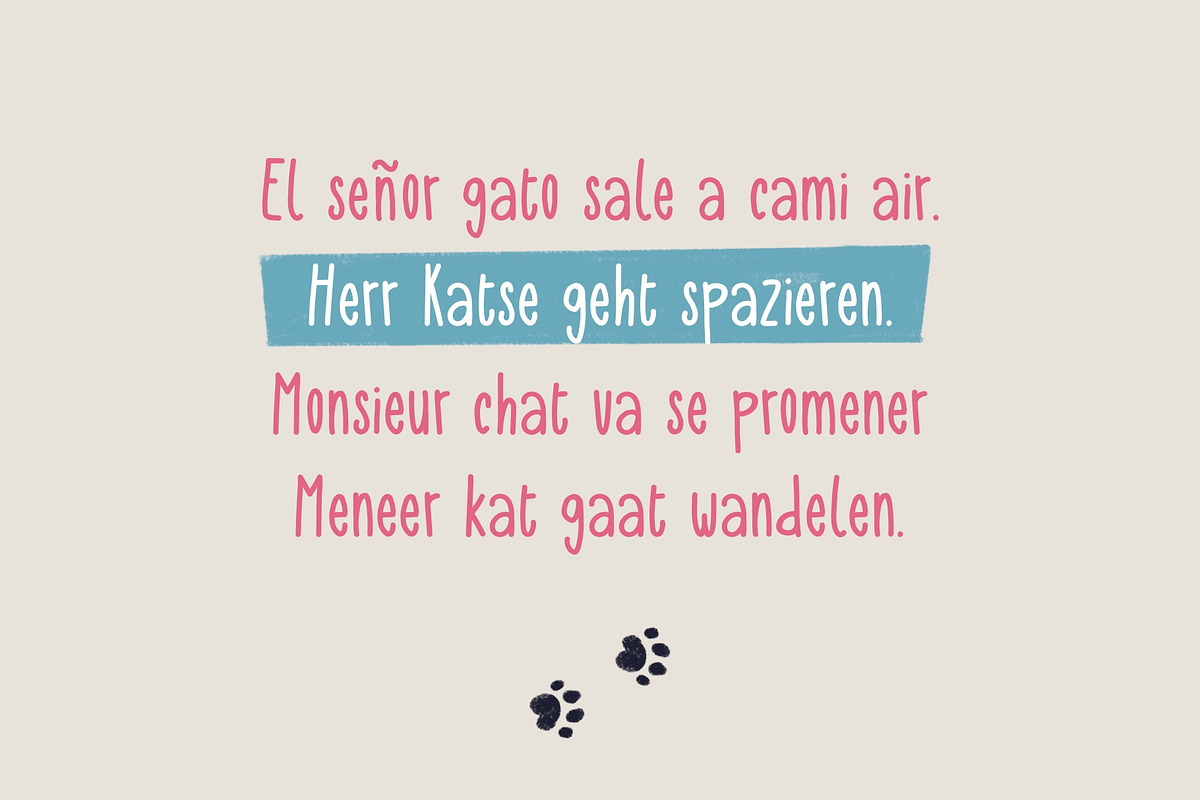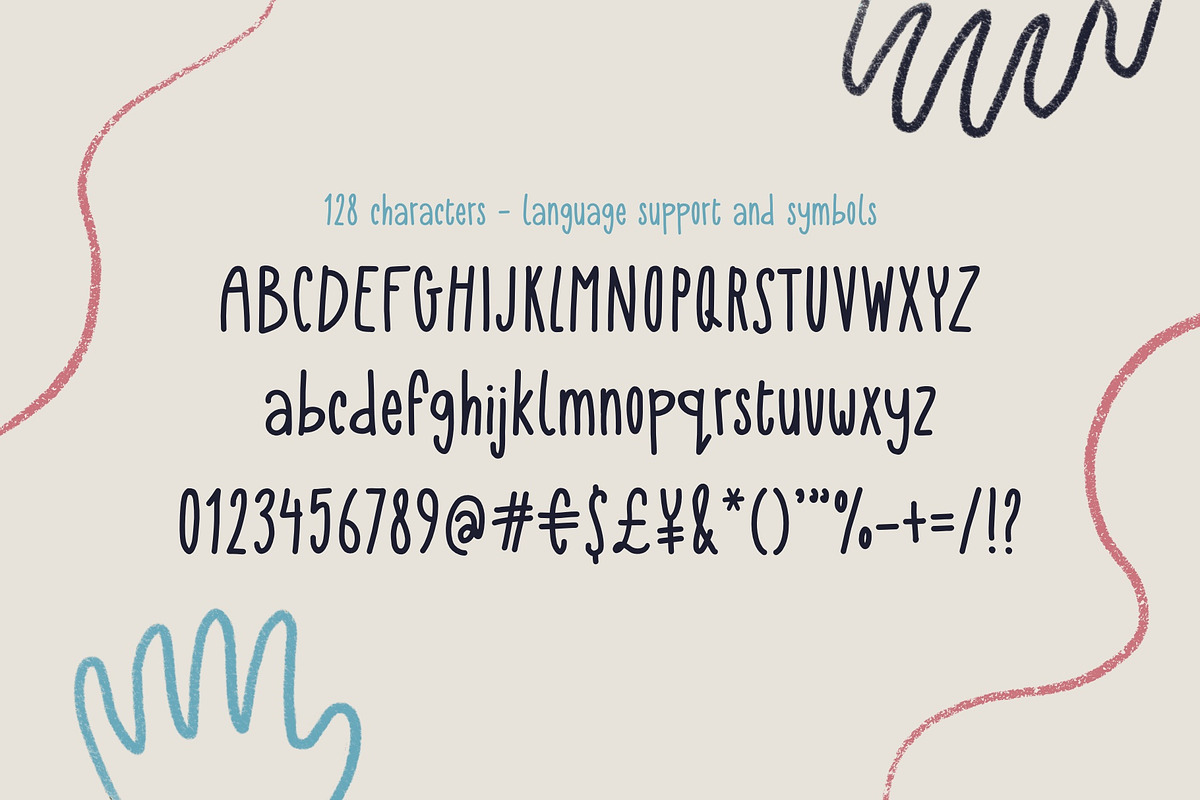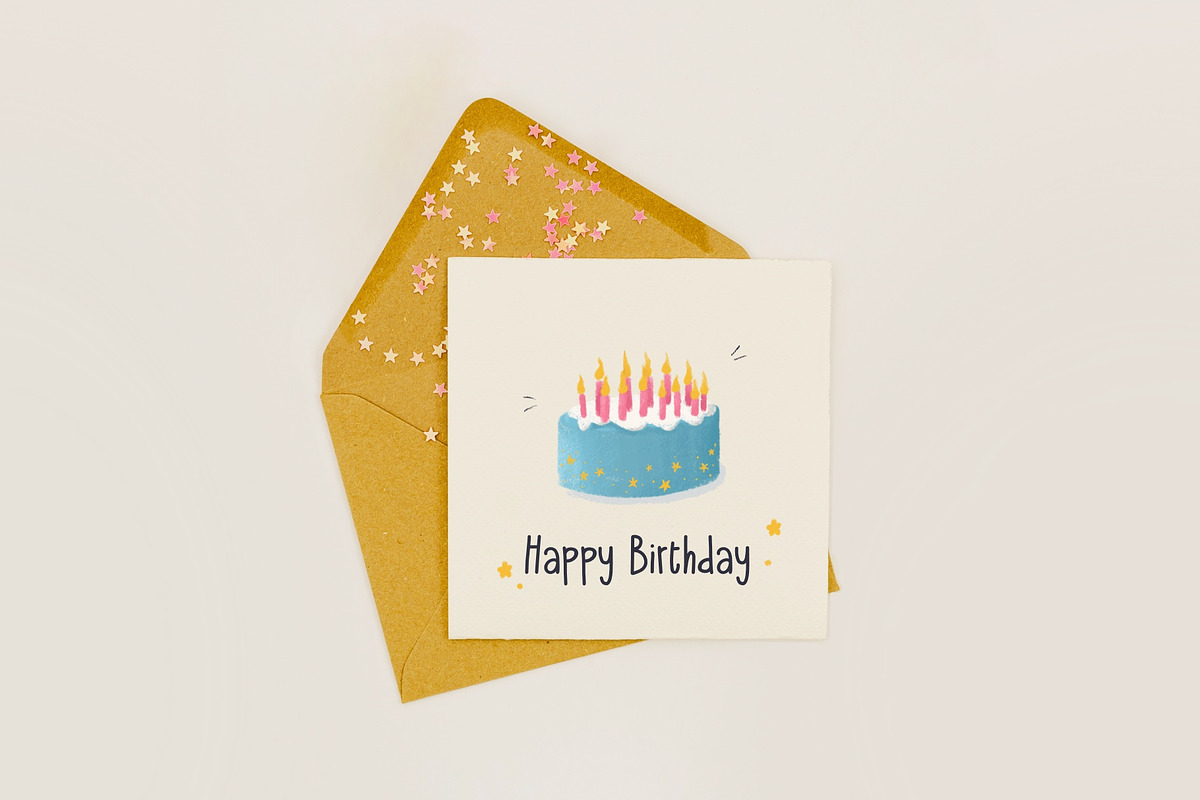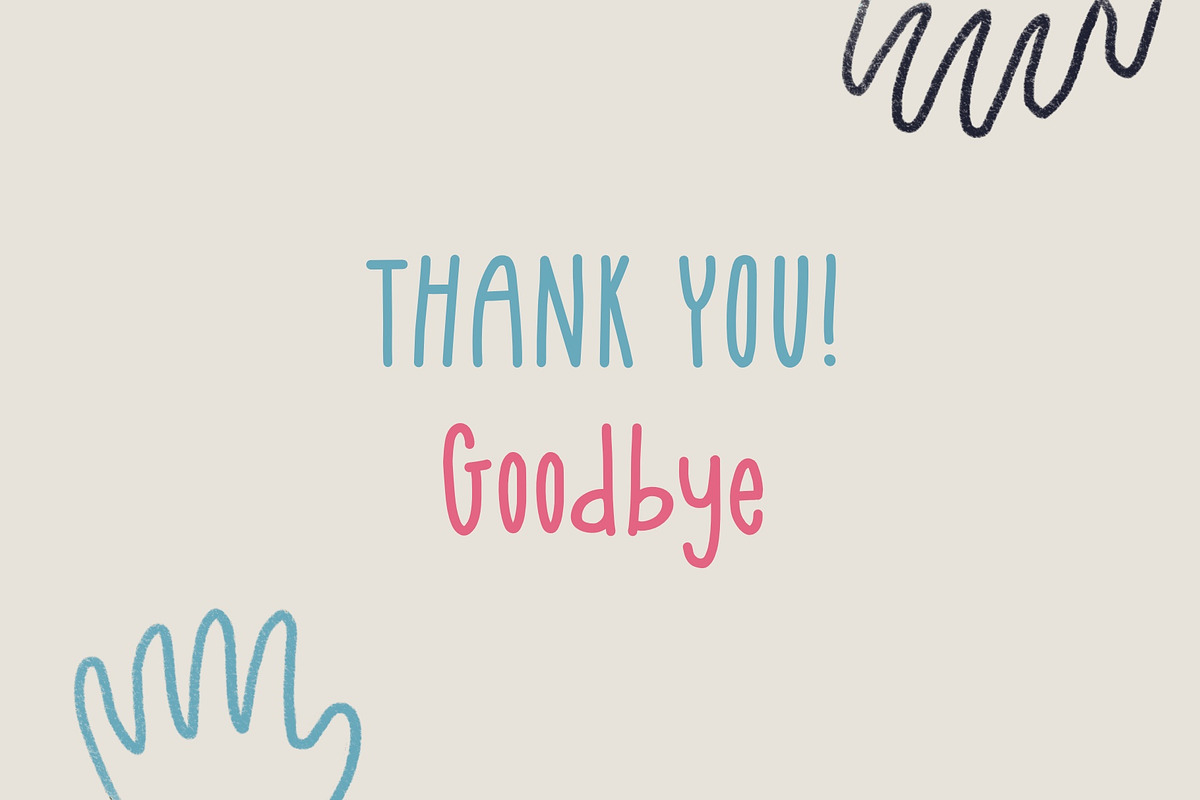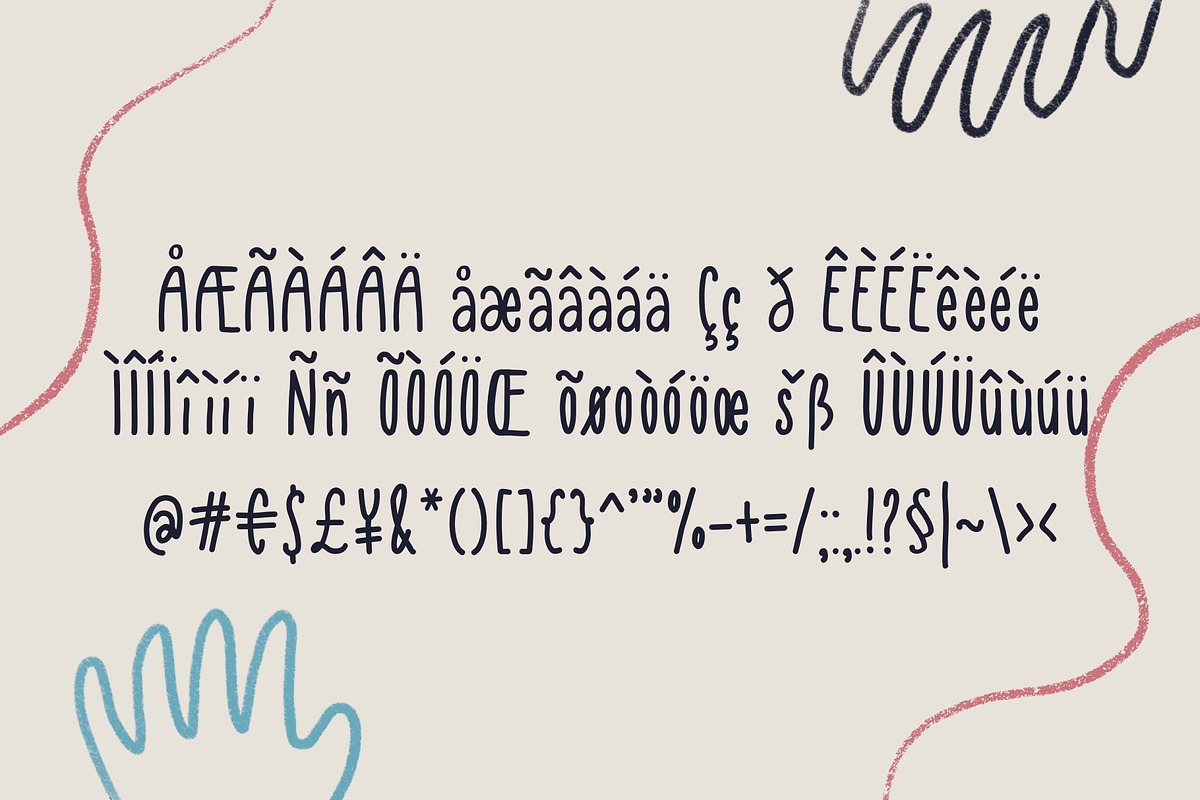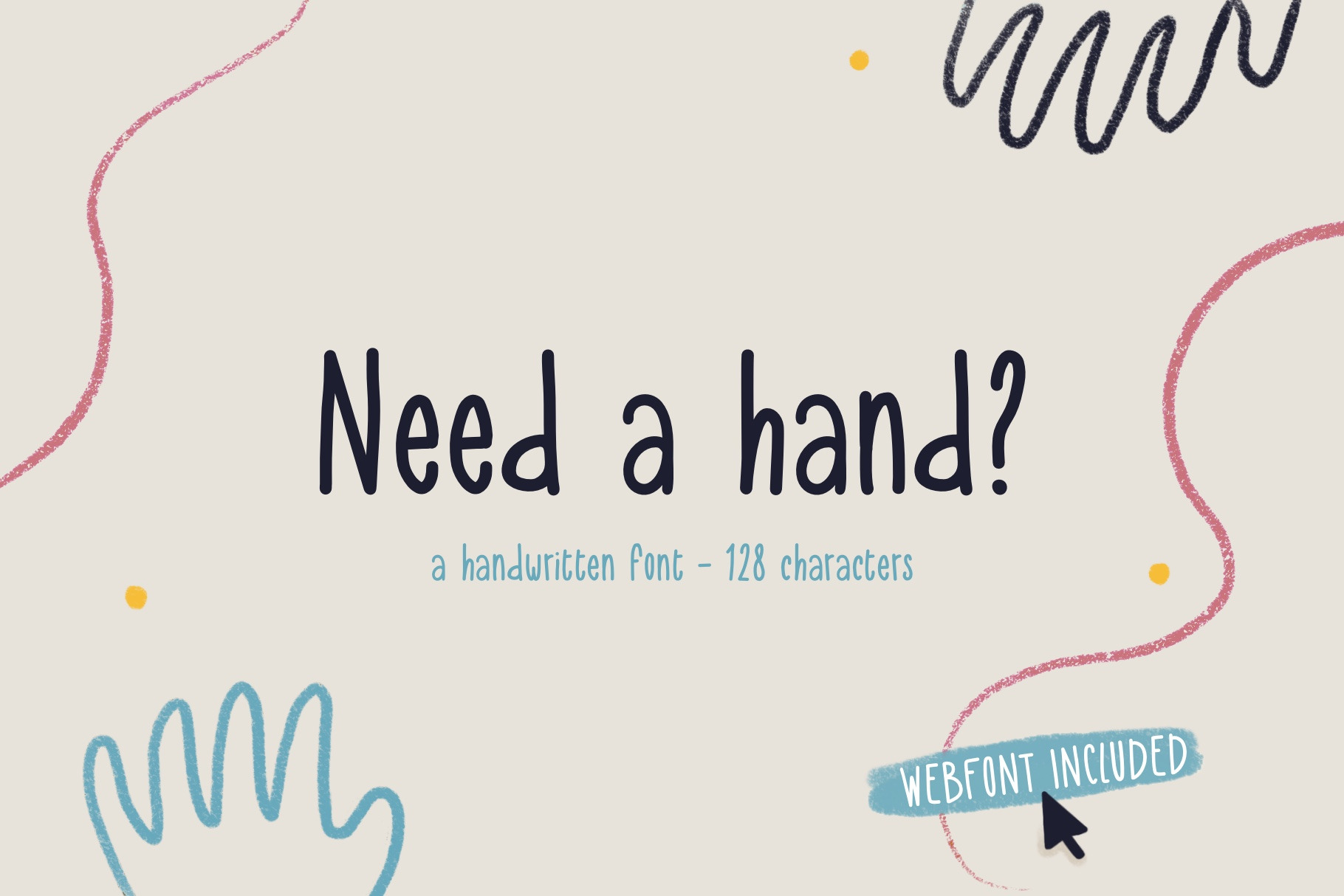
Need a hand? - handwritten (web)font
A happy and cute handwritten font.
Need a hand? is a hand-drawn font with a bit of character. With the a standing out en the narrow/condesed playfull fonttype.
Perfect for designs where you need a font that's handwritten but cute and playfull.